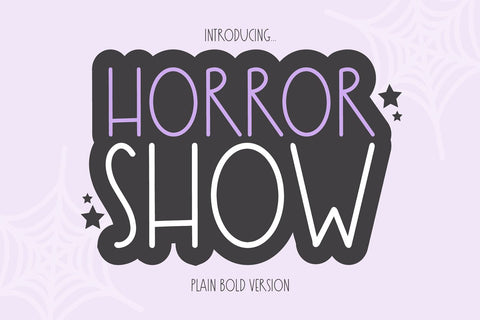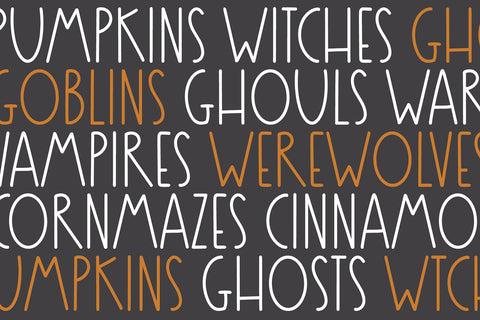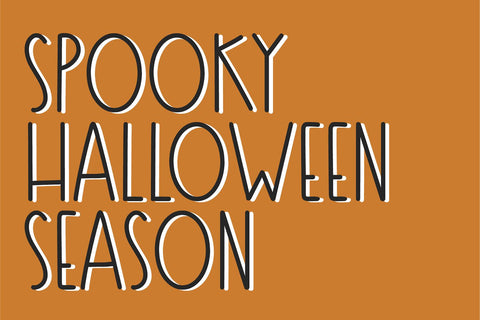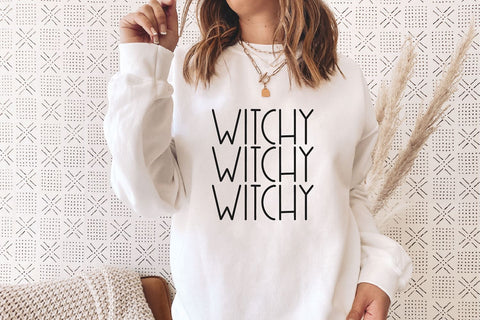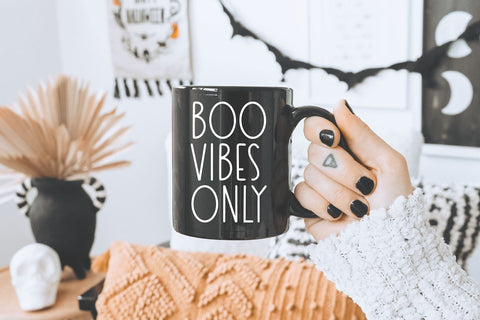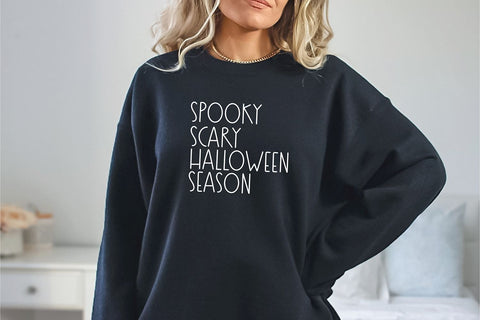
Horror Show Bold
"Horror Show Bold" Spooky Halloween Farmhouse Font
This will work great for your Halloween party invitations, web graphics, and other Halloween crafts.